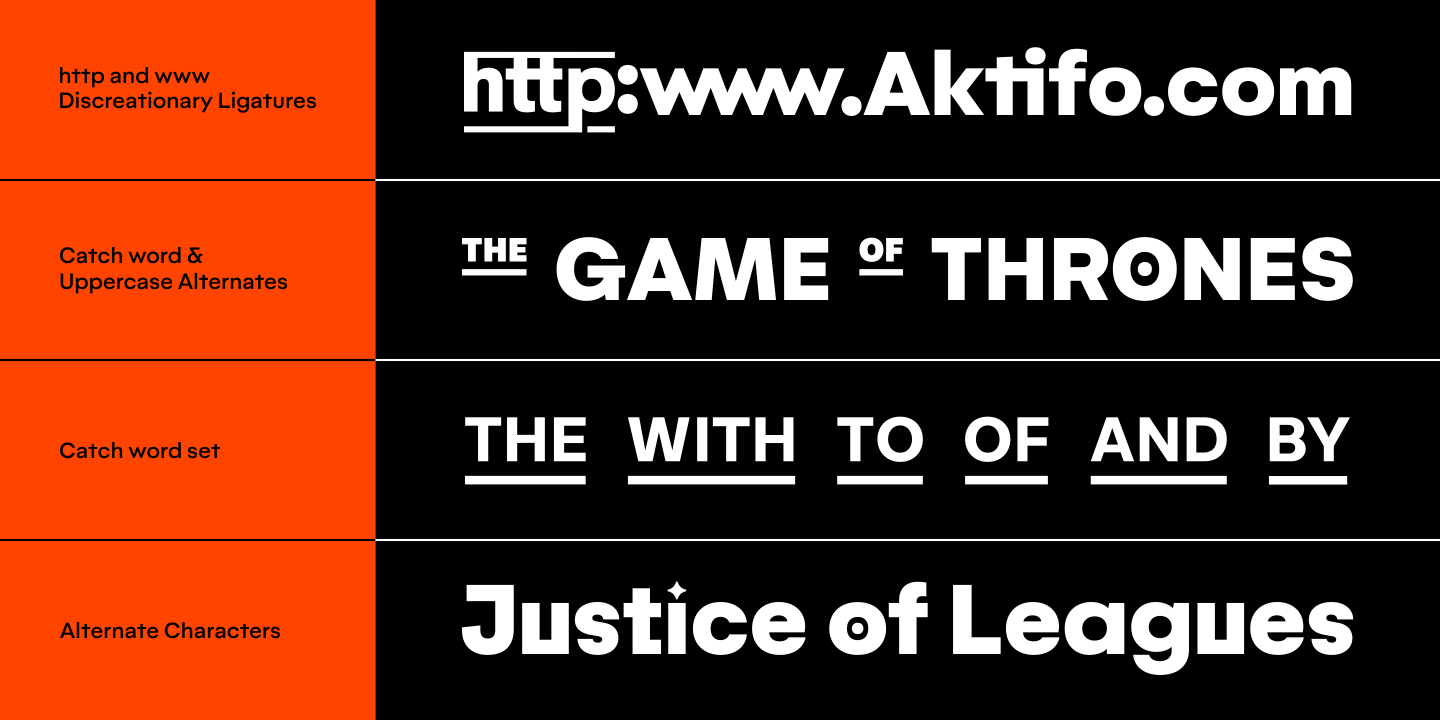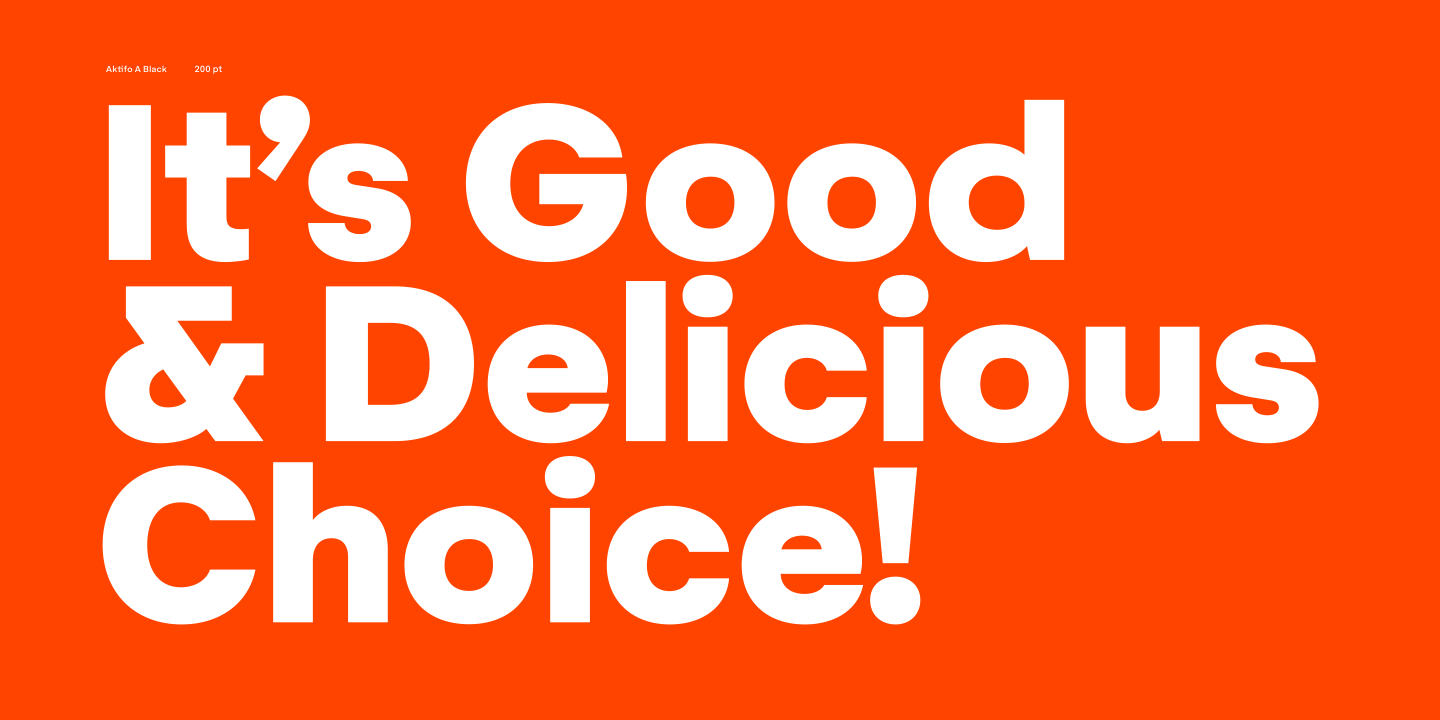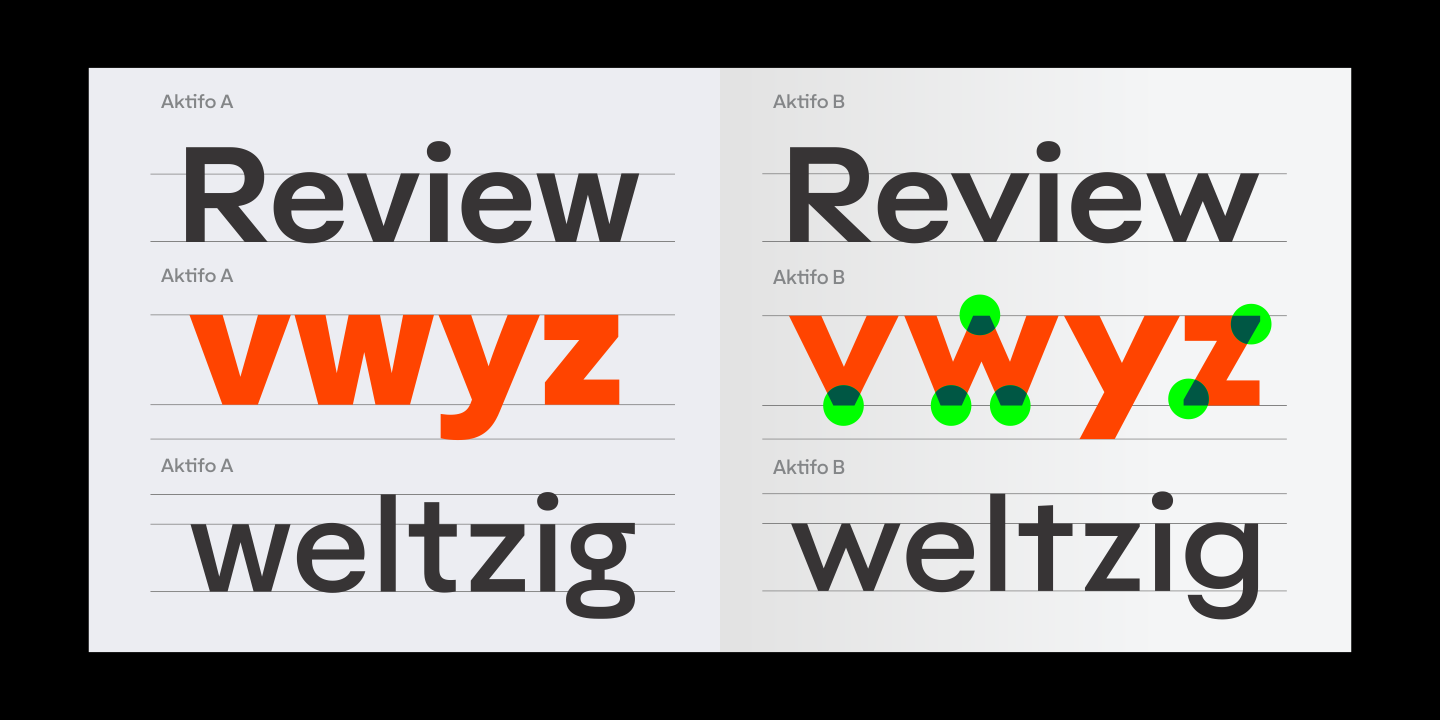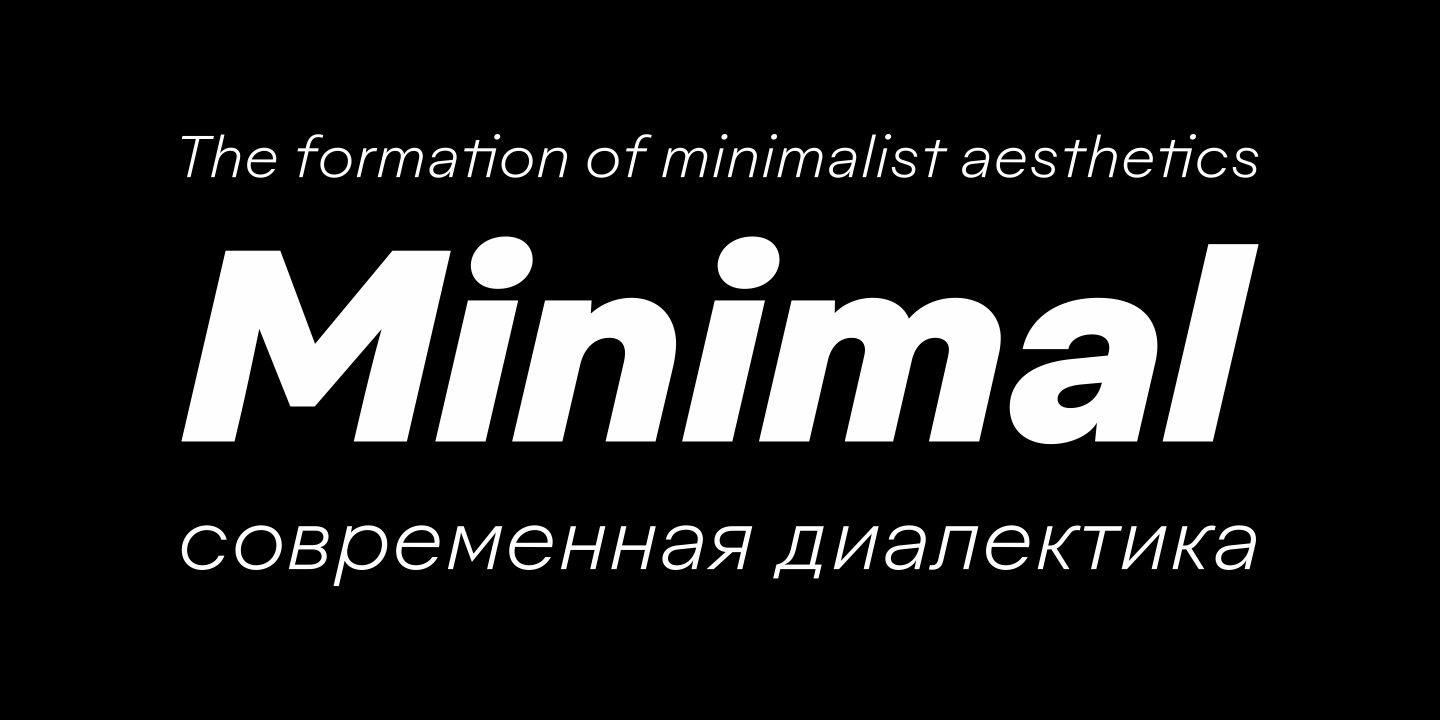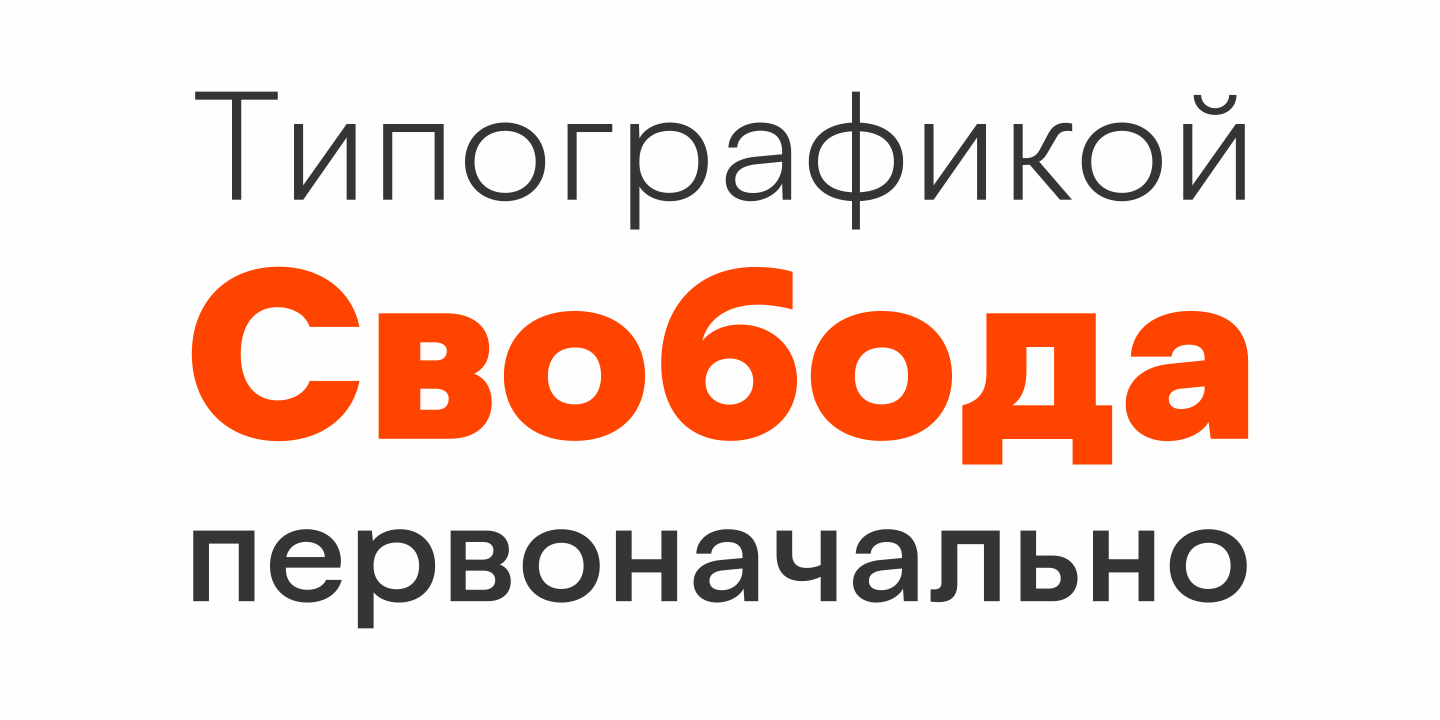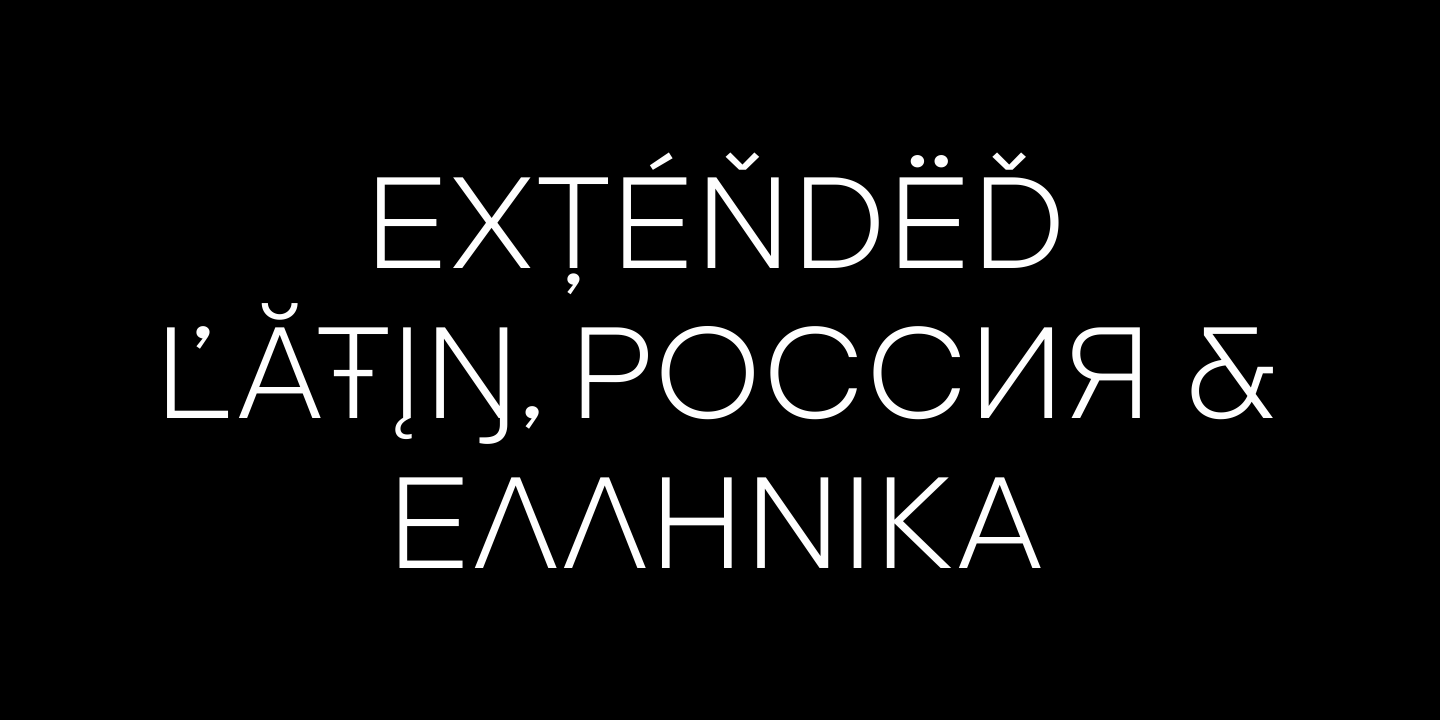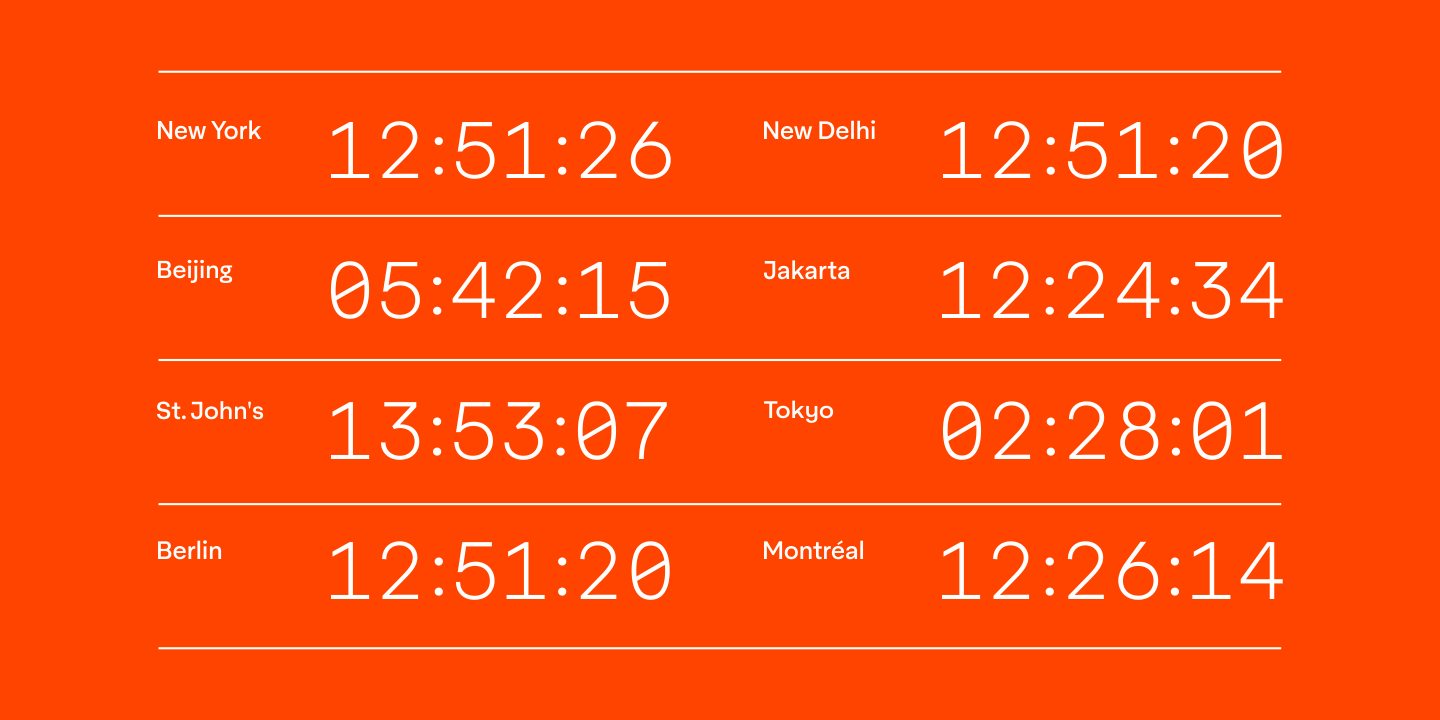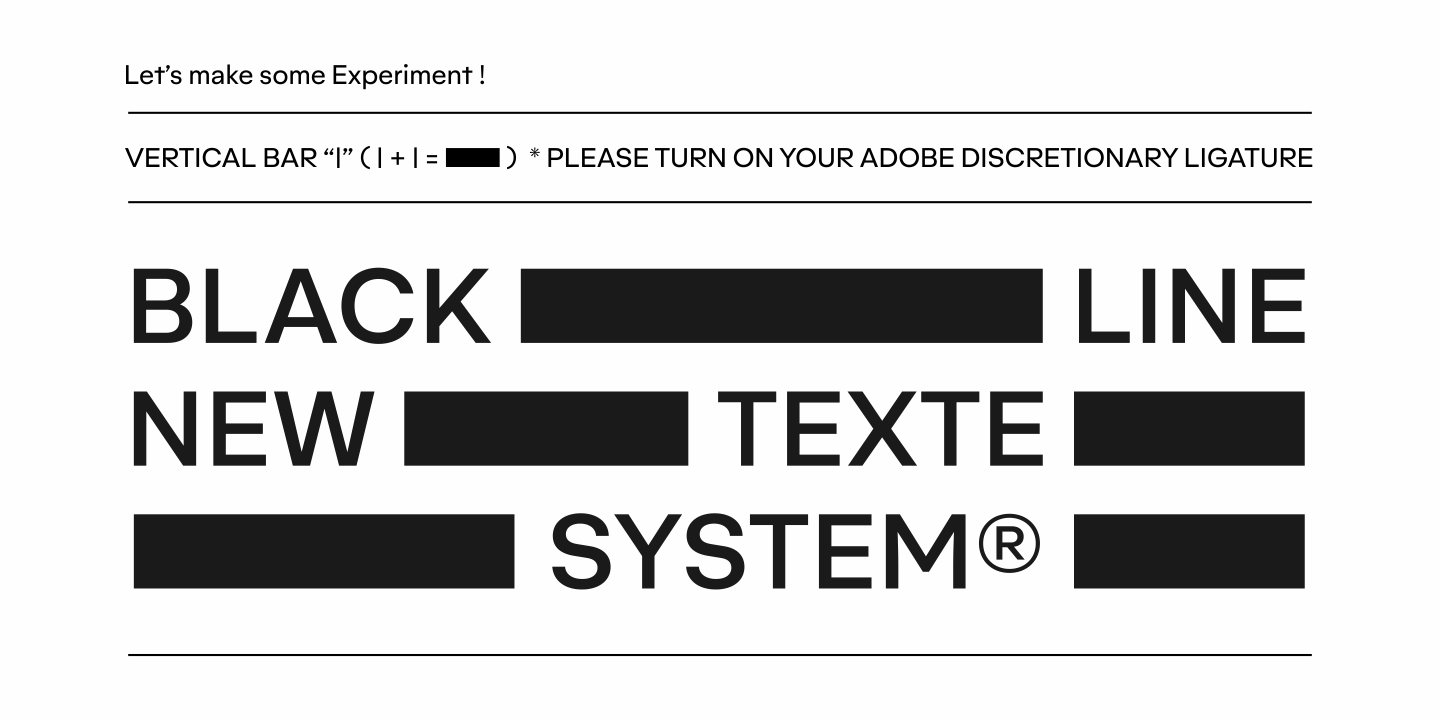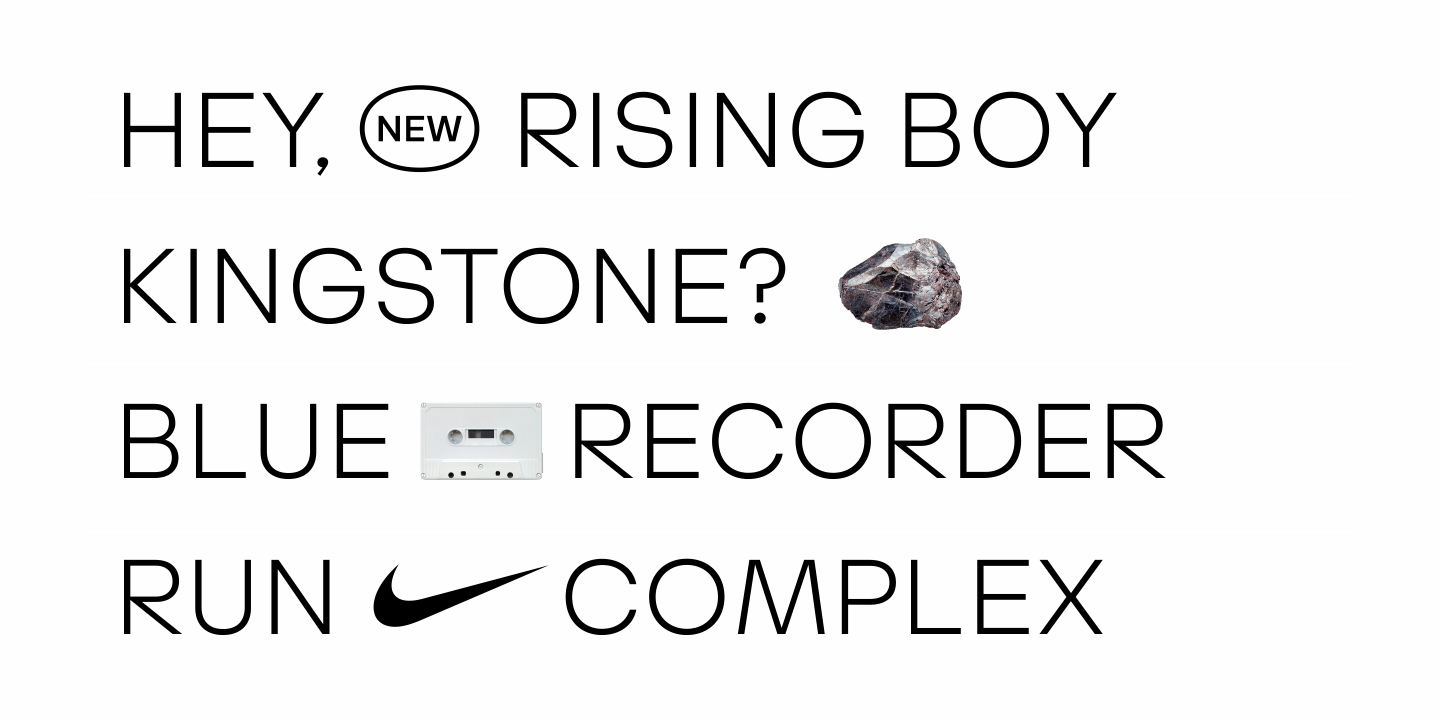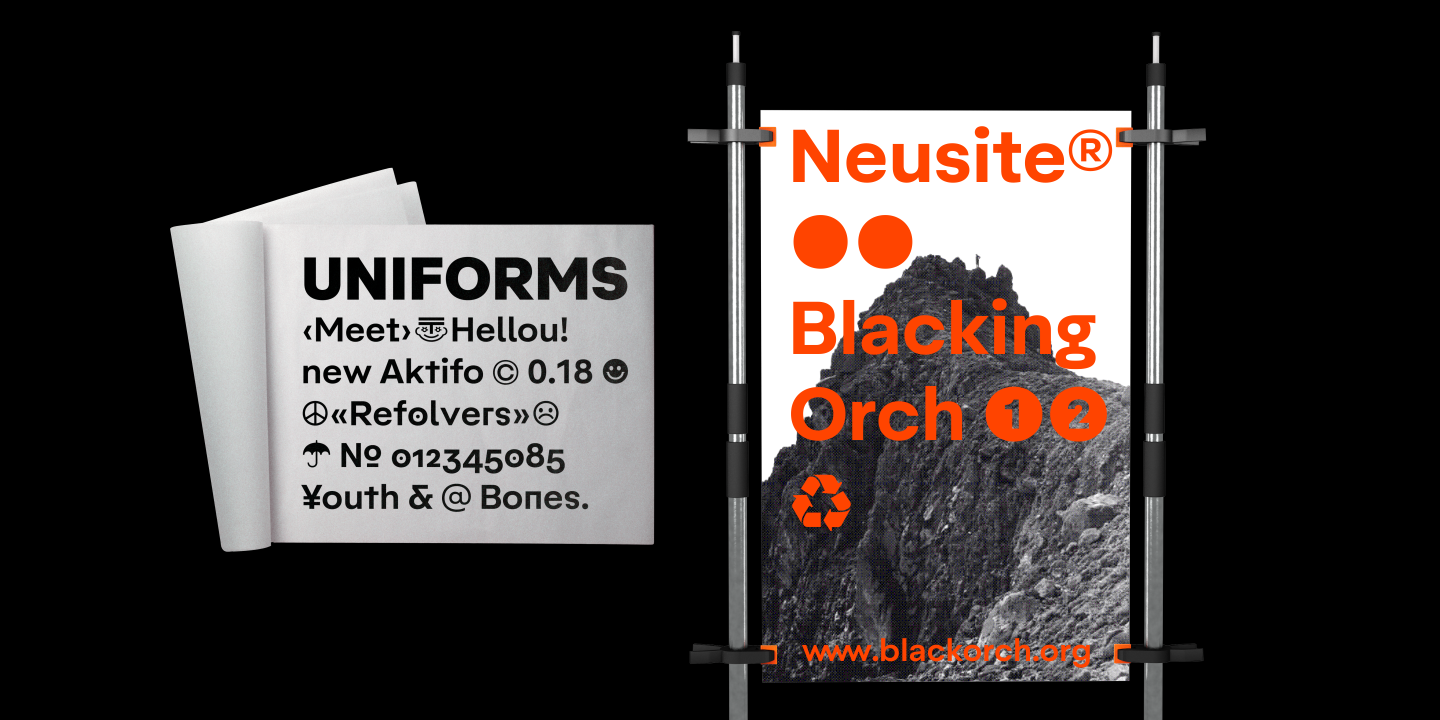
Aktifo is designed with two Flavour which carries a modern and contemporary style, based on elementary geometric shapes and constructed of monolinear lines, it was invented to be functional, leaving behind anything that can be regarded as superfluous. Aktifo comes in 28 styles: there are two types of families Actifo A and Aktifo B from Light to Black, which both have differences in characters and spaces. Developed with powerful opentype features, equipped with extended language support: Cyrillic, Greek (BETA) and fractions, tabular figures, arrows, ligatures and more.